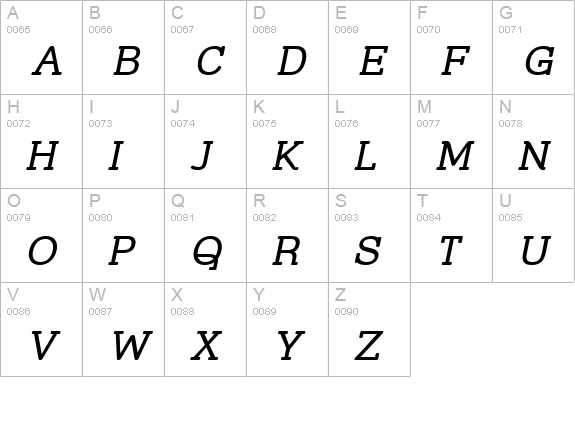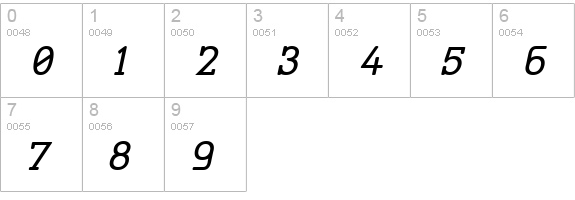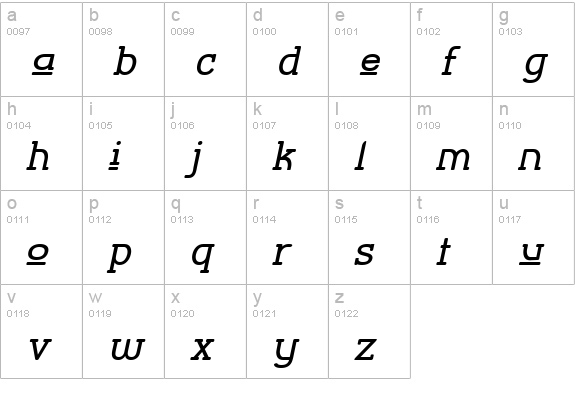
Street Corner Slab Upper Obl font is a bold and eye-catching typeface that exudes a strong and modern aesthetic. With its sharp corners and slab serif design, this font is perfect for creating impactful headlines, signage, and branding materials. The uppercase letters are uniquely styled with a sense of urban flair, making them stand out in any design project. What makes Street Corner Slab Upper Obl font even more appealing is that it is available for free download at FontsMarket.com. Whether you are a designer looking to add some edge to your creations or a business owner in need of a distinctive font for your branding, this font is a great choice. Don't miss out on the opportunity to enhance your projects with this striking and versatile typeface, available at no cost.